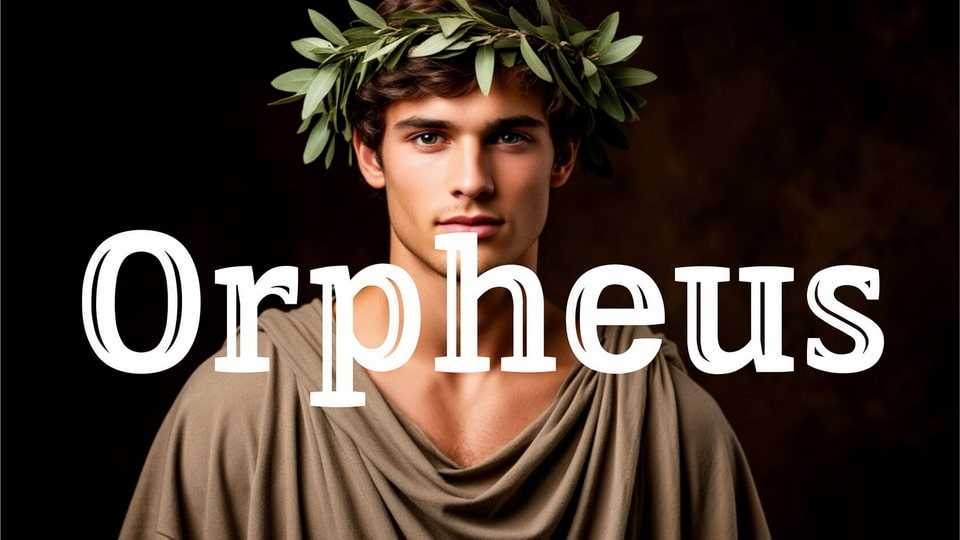
Download Orpheus font, a refined serif typeface that channels the grace and drama of classical antiquity. Its sculptural letterforms and balanced proportions evoke the elegance of ancient inscriptions.
Designer: Vasiliy Shishkin